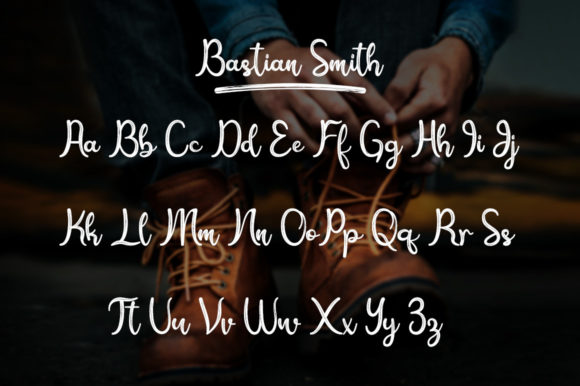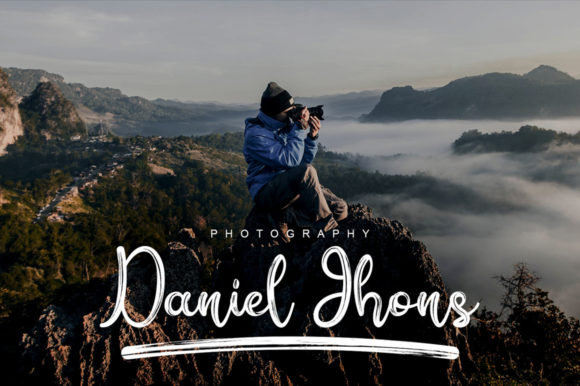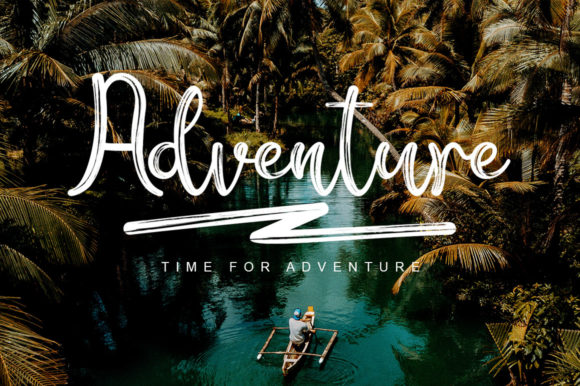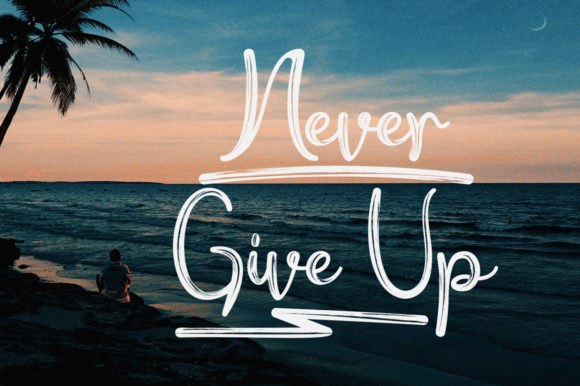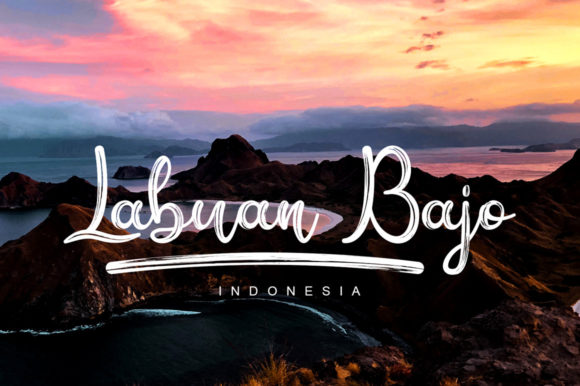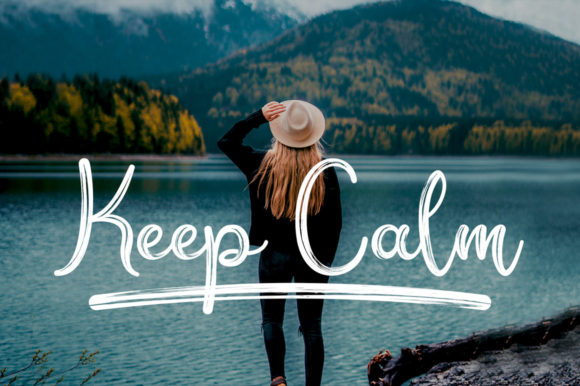
Bastian Smith Font: Elevate Your Designs with this Stunning Brushed Script Font
Are you tired of using the same old fonts in your designs? Look no further than the Bastian Smith Font, a beautiful brushed script font that is sure to take your creations to the next level. With its attractive and charming characters, this font is perfect for designers and crafters looking to add a touch of elegance and sophistication to their work.
What is Bastian Smith Font?
Bastian Smith Font is a type of script font that features a brushed or handwritten style. This font is designed to mimic the look of handwriting with a brush, giving it a unique and artistic feel. The font is made up of beautiful, flowing characters that are perfect for creating eye-catching headlines, titles, and text.
Key Features of Bastian Smith Font
So, what makes Bastian Smith Font so special? Here are just a few of its key features:
- Unique Brushed Style: The Bastian Smith Font features a distinctive brushed style that gives it a hand-crafted feel. This style is perfect for creating designs that look handmade or artistic.
- Attractive Characters: The font features beautiful, flowing characters that are sure to catch the eye. Each character is carefully designed to be both elegant and charming.
- Highly Versatile: The Bastian Smith Font can be used for a wide range of design projects, from logos and branding to social media graphics and more.
- Easily Customizable: The font is highly customizable, making it easy to adjust the size, color, and style to fit your design needs.
How to Use Bastian Smith Font in Your Designs
Using the Bastian Smith Font in your designs is easy. Here are a few tips to get you started:
- Pair it with Other Fonts: The Bastian Smith Font pairs well with a variety of other fonts, making it easy to create visually appealing combinations.
- Use it for Headlines and Titles: The font is perfect for creating eye-catching headlines and titles that are sure to grab attention.
- Add it to Your Branding: The Bastian Smith Font can be used to create a unique and memorable brand identity that sets you apart from the competition.
- Experiment with Colors and Textures: Don’t be afraid to experiment with different colors and textures to add depth and interest to your designs.
Benefits of Using Bastian Smith Font
So, why should you choose the Bastian Smith Font for your designs? Here are just a few benefits:
- Instantly Elevate Your Designs: The Bastian Smith Font can instantly elevate your designs, making them look more professional and polished.
- Stand Out from the Crowd: The font’s unique brushed style and attractive characters make it a great way to stand out from the crowd and create designs that are truly memorable.
- Perfect for Creative Projects: The Bastian Smith Font is perfect for creative projects, such as art, craft, and design.
In conclusion, the Bastian Smith Font is a beautiful and versatile brushed script font that is perfect for designers and crafters looking to add a touch of elegance and sophistication to their work. With its attractive characters, unique brushed style, and highly customizable features, this font is sure to take your designs to the next level. So why wait? Download the Bastian Smith Font today and start creating stunning designs that are sure to impress!